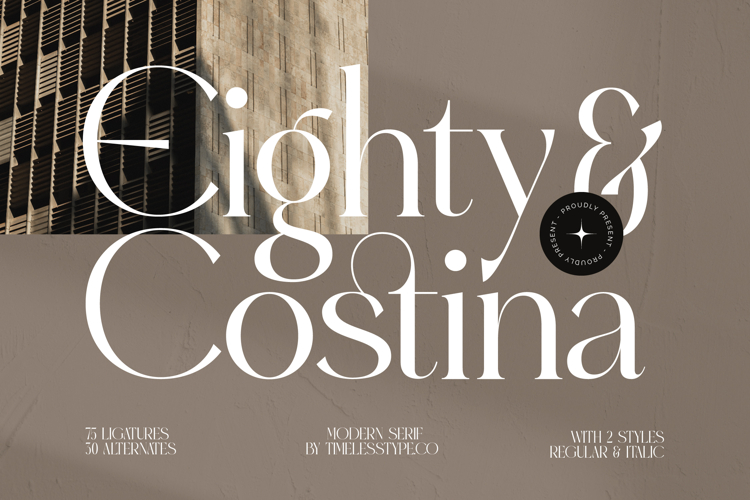
Eighty & Costina - Modern Serif Font
Elevate your designs with the unparalleled elegance of Eighty & Costina - Modern Serif Font. This exquisite typeface masterfully blends timeless sophistication with a fresh, contemporary aesthetic, making it an ideal choice for projects demanding a touch of luxury. Its distinct high-contrast strokes and graceful letterforms create an immediate impression of refined style and professionalism, capturing attention with every character.
Crafted for maximum impact and versatility, Eighty & Costina - Modern Serif Font offers two essential styles: Regular and Italic. Further enriching its design capabilities are 75 meticulously crafted ligatures and 30 unique alternates, providing endless creative possibilities. These extensive stylistic sets empower designers to achieve truly customized and expressive typography, ensuring every headline and logotype resonates with bespoke artistry.